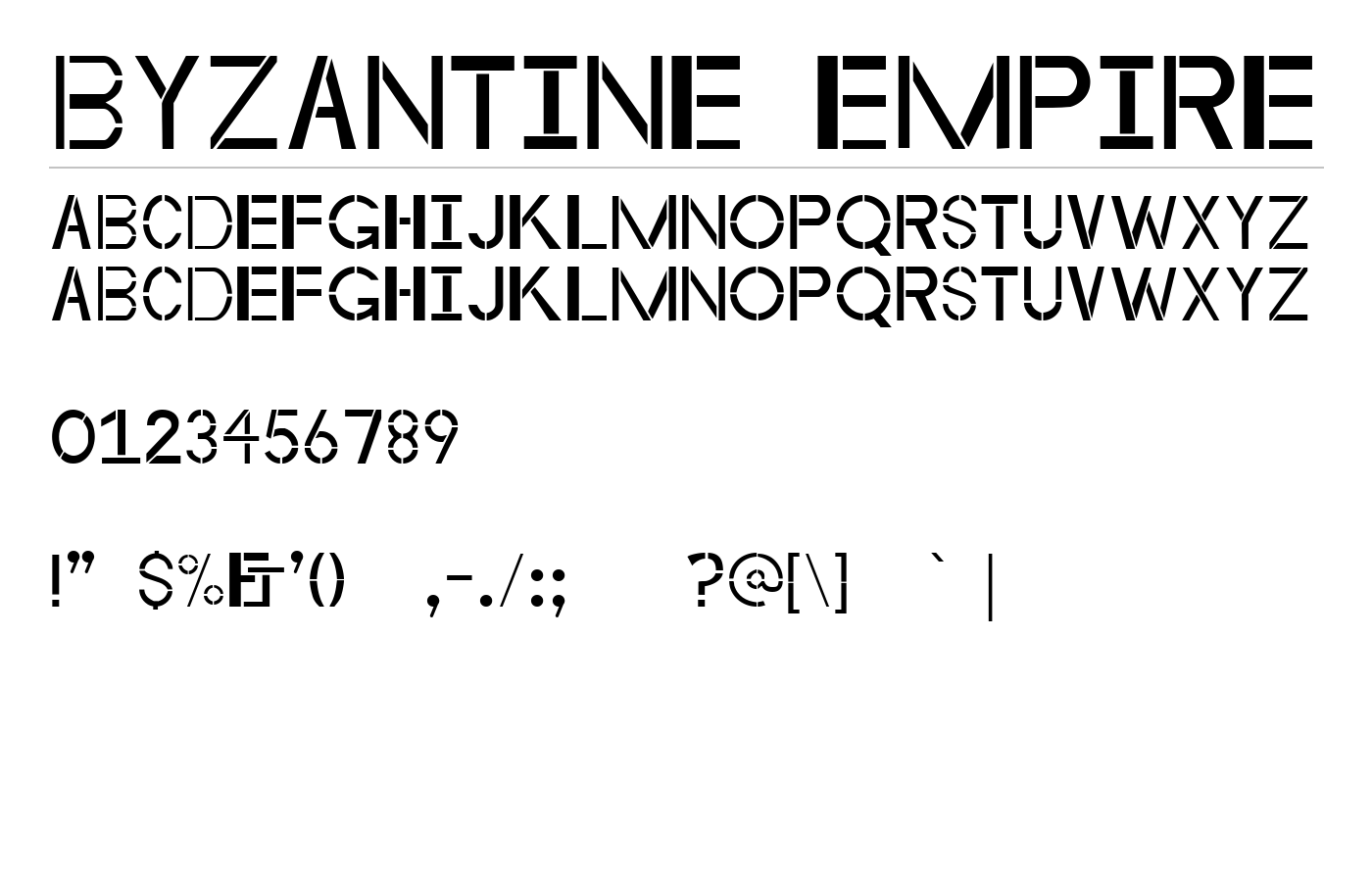
Byzantine Empire is a modern, geometric sans serif font characterized by its high contrast between thick and thin strokes and a distinctive stencil-like design that breaks traditional letterforms into angular, segmented shapes. Its uppercase-only style and sharp, futuristic aesthetic make it ideal for bold headlines, logos, and editorial designs that seek a strong, innovative visual impact. This font works well in creative branding and project titles where an edgy, contemporary feel is desired.
Byzantine Empire Font
About Byzantine Empire Font